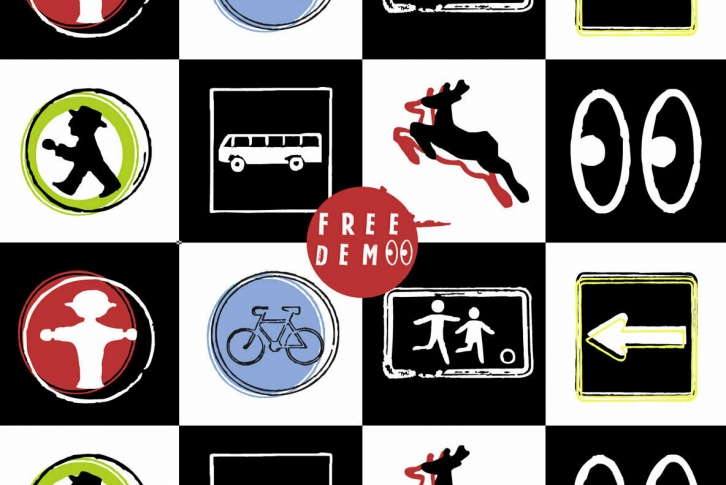
The typeface GDR Traffic Symbols is designed from 2021 for the font foundry Typo Graphic Design by Manuel Viergutz. The rough dingbat display typeface is inspired by the past and the future.
306 glyphs / decorative extras like icons, arrows, dingbats, emojis, symbols, geometric shapes, catchwords, decorative ligatures (type the word #LOVE for or #SMILE for as OpenType-Feature dlig) and stylistic alternates (5 stylistic sets).
For use in logos, magazines, posters, advertisement plus as webfont for decorative headlines. The font works best for display size.
â– Font Name: GDR Traffic Smybols
â– Font CateÂgory: DisÂplay for headÂline size
â– Glyph Set: 306 glyphs / decorative extras like arrows, dingbats, emojis, symbols
â– Design Date: 2021
â– Type DesiÂgner: Manuel Viergutz